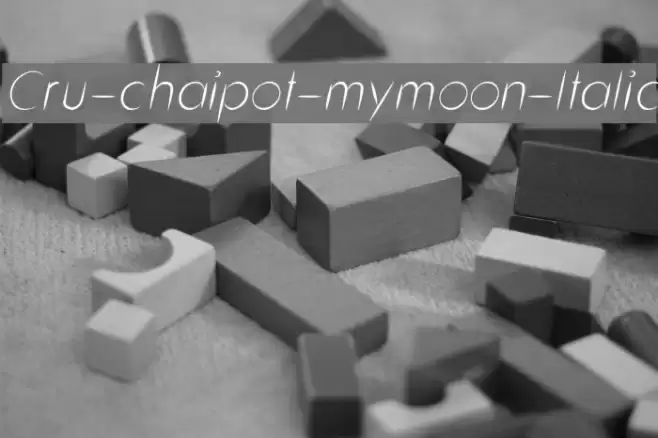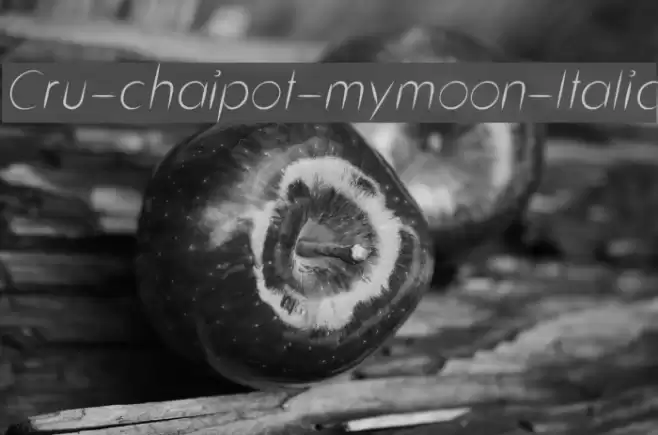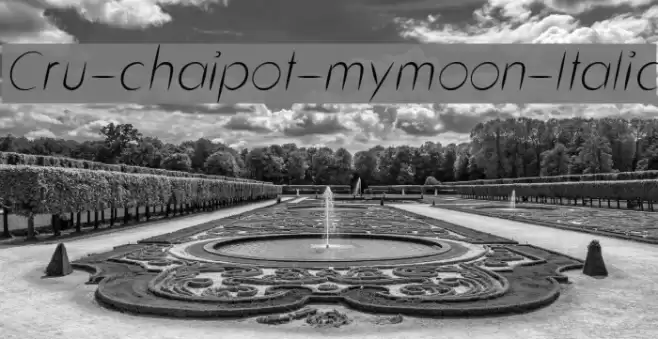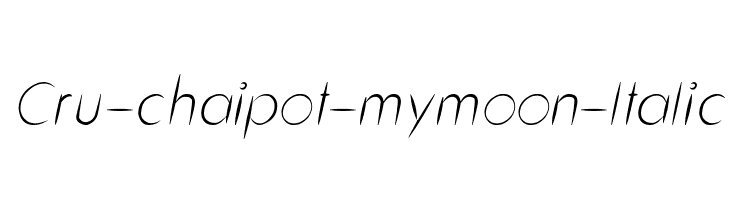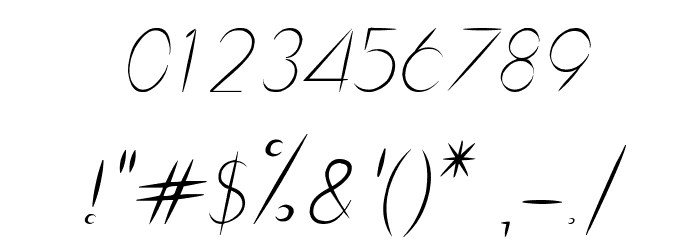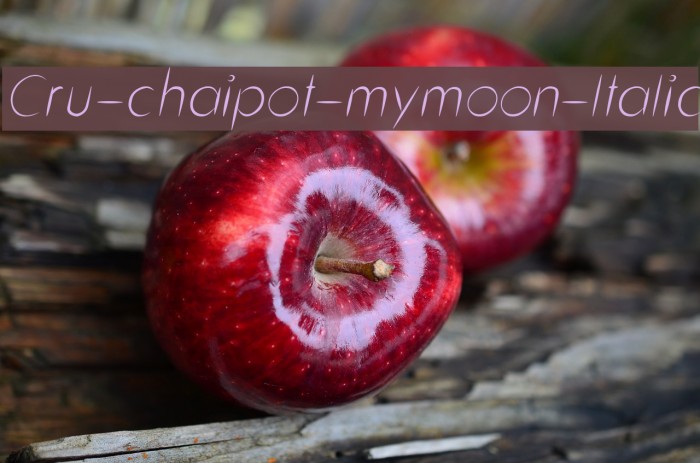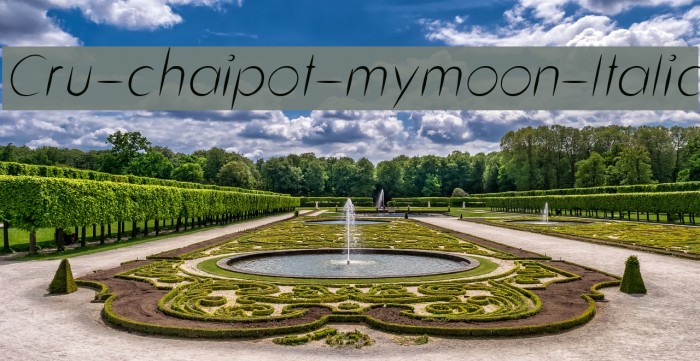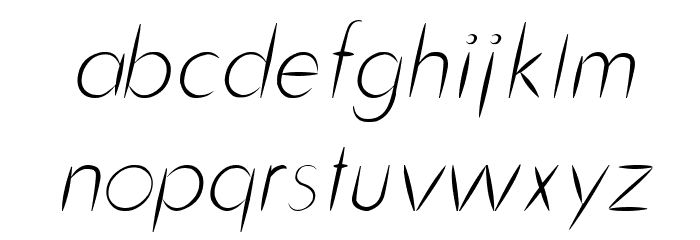
Cru-chaipot-mymoon-ltalic Font
Cru-chaipot-mymoon-ltalic Description
This font features a sleek, modern design with a distinct italic slant, giving it a dynamic and elegant appearance. The characters are thin and elongated, with a consistent stroke width that adds to its refined aesthetic. The uppercase letters are tall and narrow, while the lowercase letters maintain a similar proportion, creating a harmonious balance. The numerals are clean and straightforward, matching the overall style of the alphabet. Special characters are included, maintaining the same elegant and italicized form, making this font versatile for various uses.
A sleek, modern italic font with thin, elongated characters from Uncategorized fonts.
- Proposed Projects: Ideal for fashion magazines, luxury branding, elegant invitations, and modern website headers.
- Weight: Light
- Overall Style: Elegant and modern
- Use Case: Headlines, Logos, Invitations